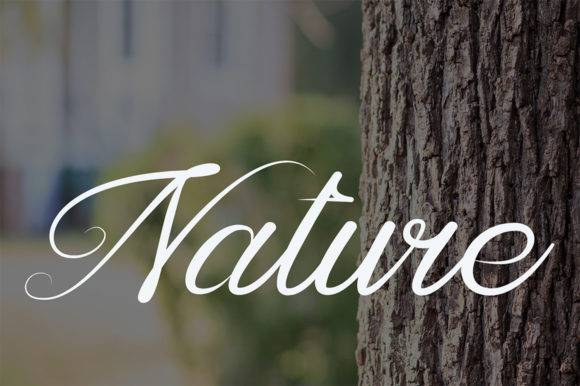
Luxury Font for Crafting, Logos and Print Projects
The Luxury Font is a modern, high-contrast typeface crafted to bring elegance and professionalism to any creative project. Perfectly suited for both digital and print mediums, it balances readability with designer flair—making it ideal for logo design, invitations, and upscale marketing materials.
As a FONT file, it integrates seamlessly into typography-based workflows and supports crisp rendering in vinyl projects, product packaging, and promotional campaigns. From luxury brands to boutique businesses, this font makes a visual impact with minimal effort.
- High-end logos and product packaging
- Invitations, greeting cards, and printables
- Custom shirts, tote bags, and branding tools
- Vinyl decals and personalized merchandise
- Editorial layouts and digital advertisements
- Elegant styling perfect for luxury and minimalist branding
- Optimized for vinyl cutting, web, and print
- High legibility with stylish letterform contrast
| Design Theme | Luxury, modern, minimal | Basic serif | Generic sans-serif |
| Best For | Logos, branding, print | Body text only | Generic marketing use |